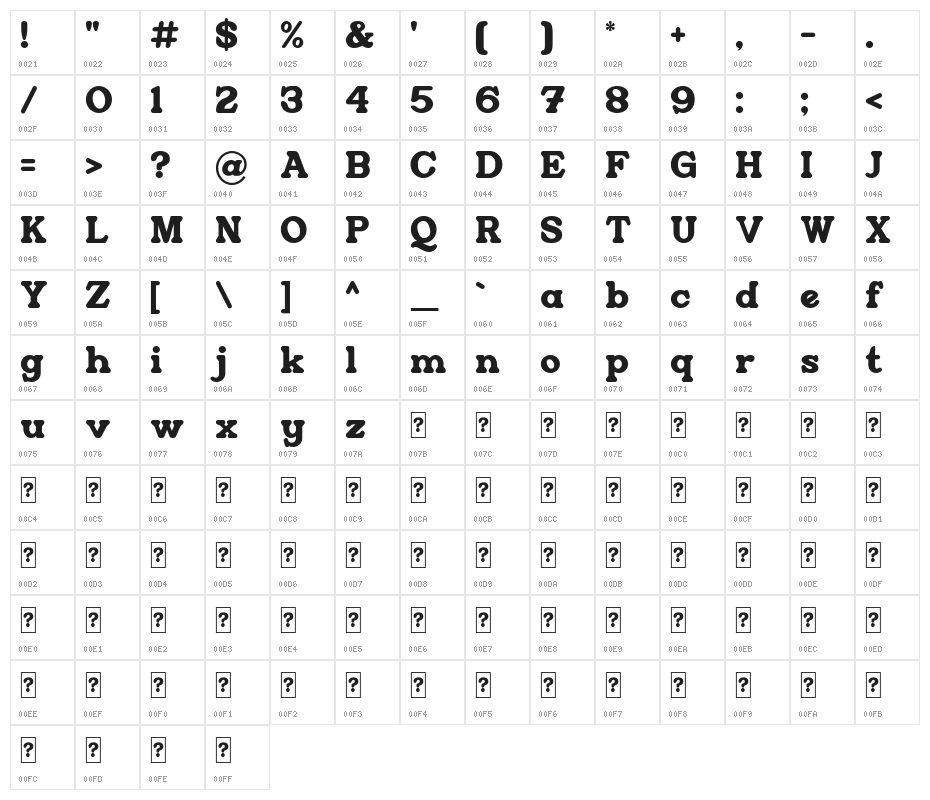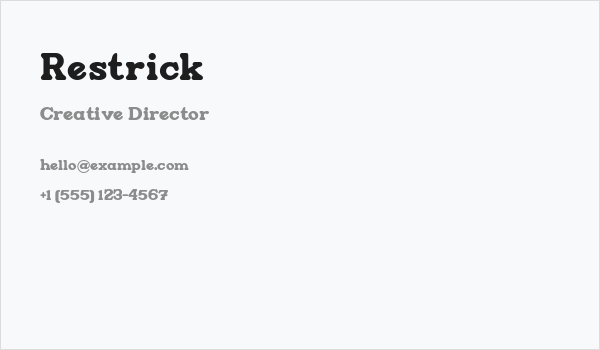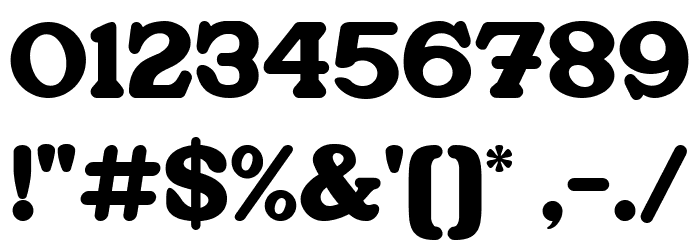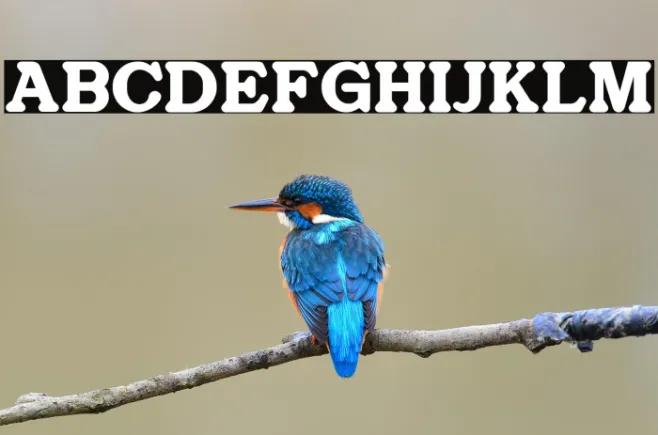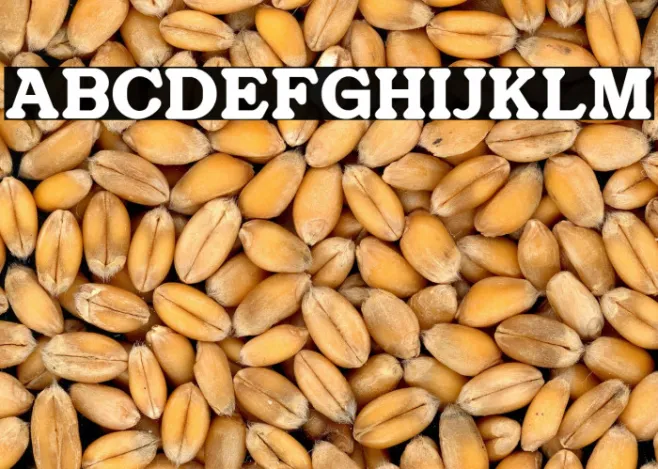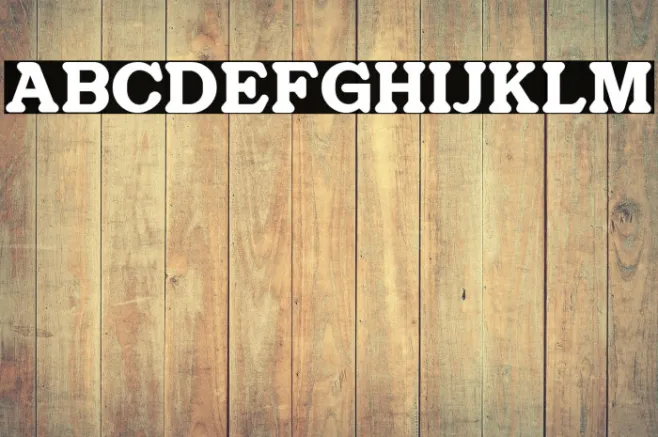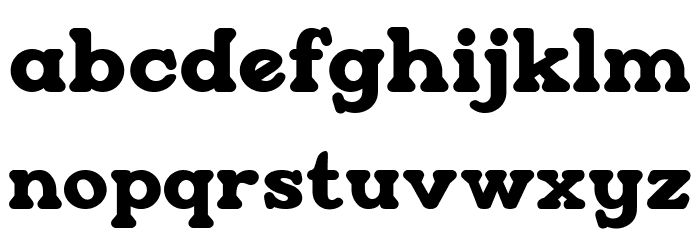
Restrick Font
Restrick Description
This font features bold, rounded characters with a playful and friendly appearance. The letters are thick and have a uniform stroke width, giving them a strong presence on the page. The rounded edges and curves add a touch of softness, making it approachable and easy to read. The numbers and special characters maintain the same boldness and rounded style, ensuring consistency throughout the font. Its design is reminiscent of vintage typefaces, yet it carries a modern twist with its clean lines and simplicity. This font is versatile, suitable for both digital and print media, and can be used to convey a sense of warmth and approachability.
| Proposed Projects | Ideal for children's books, playful branding, posters, and social media graphics. |